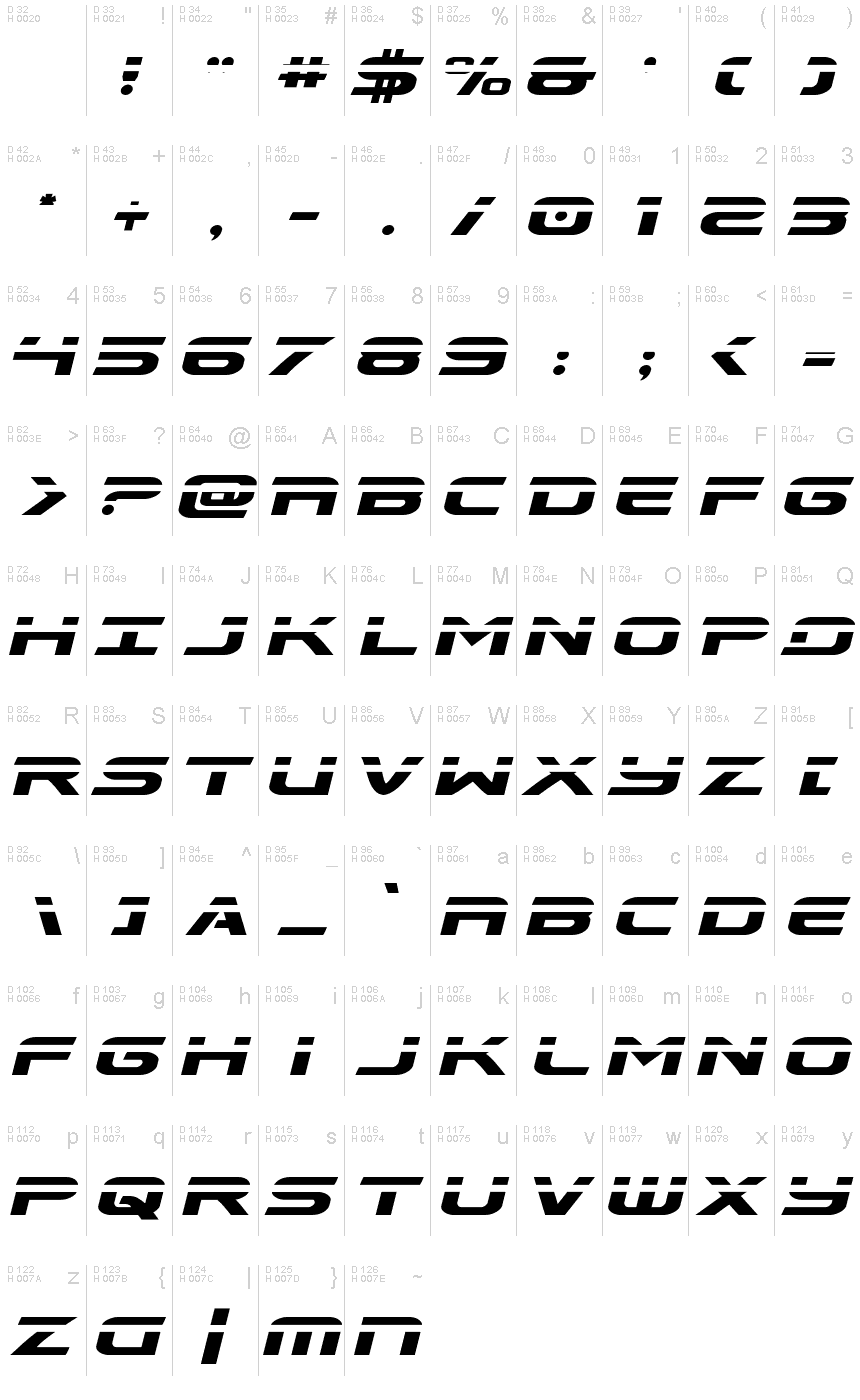
Drius Laser
Drius Laser, a bold and futuristic display font from Iconian Fonts, is the perfect choice for projects that crave a cutting-edge and daring aesthetic. With its laser style design and extra-expanded width, this font demands attention and captivates audiences with its unique visual presence.
Ideal for branding campaigns, tech-related websites, gaming graphics, or futuristic movie titles, Drius Laser adds an avant-garde touch to any creative project.
Let your imagination soar with this striking typeface that pushes the boundaries of design and sets your work apart from the rest.